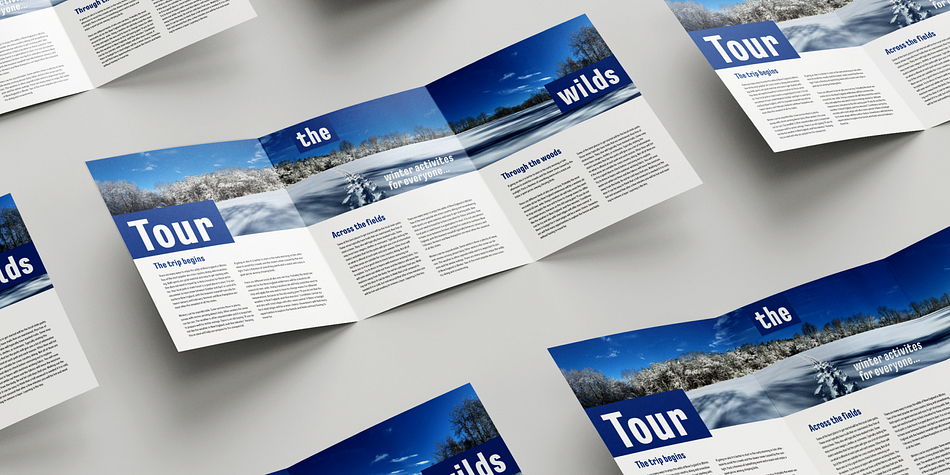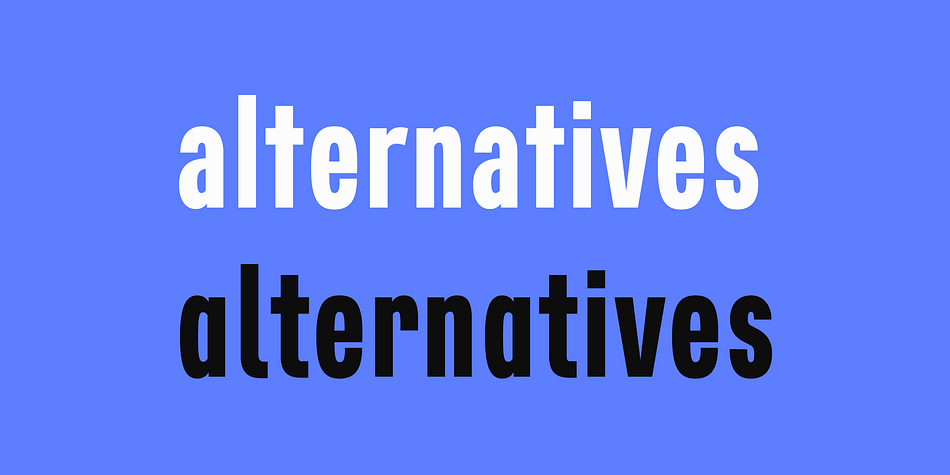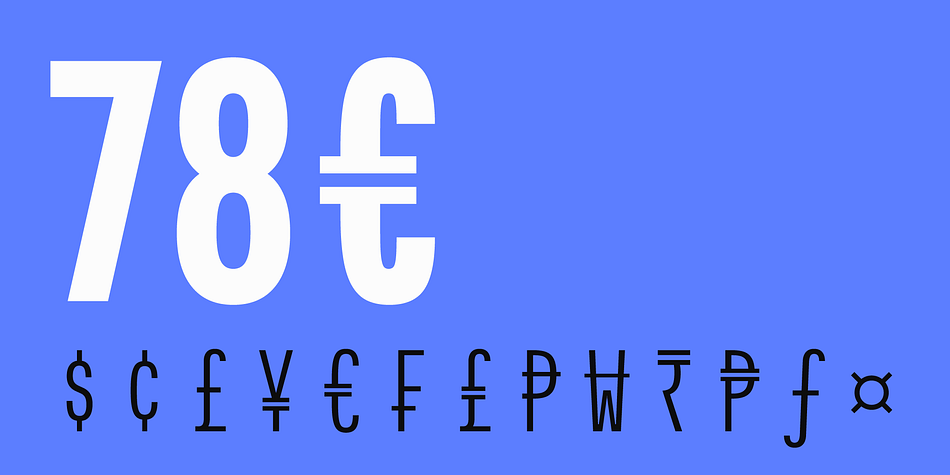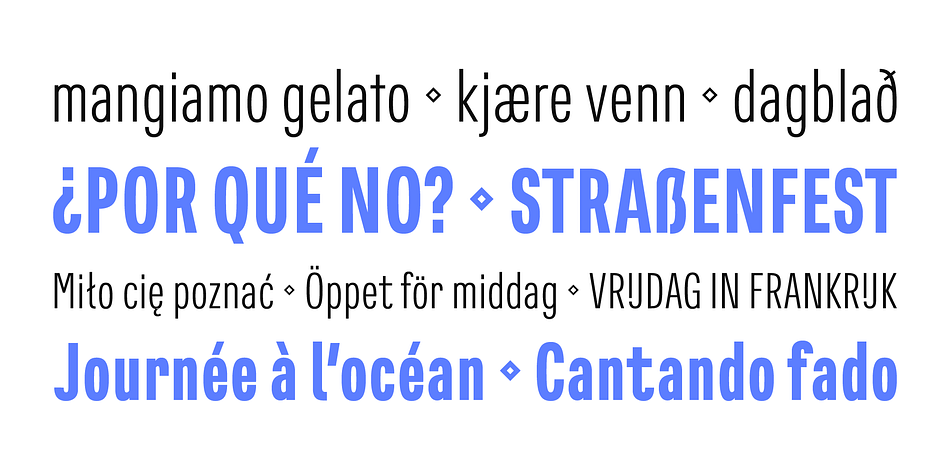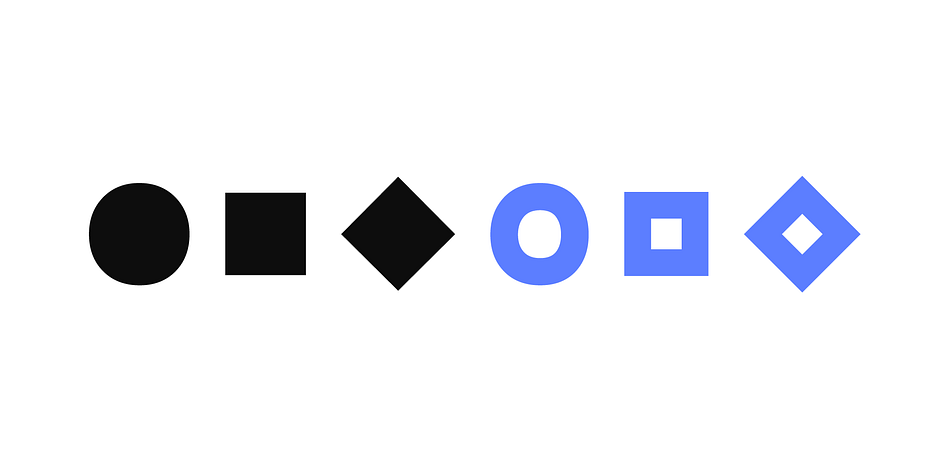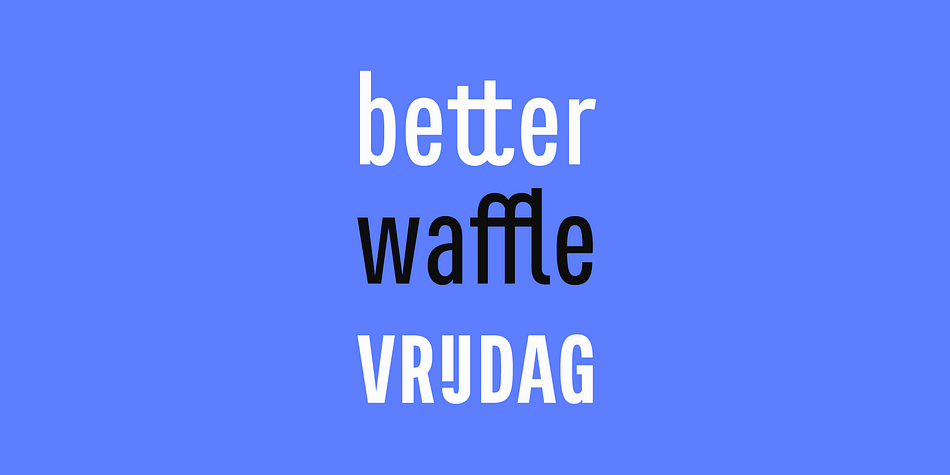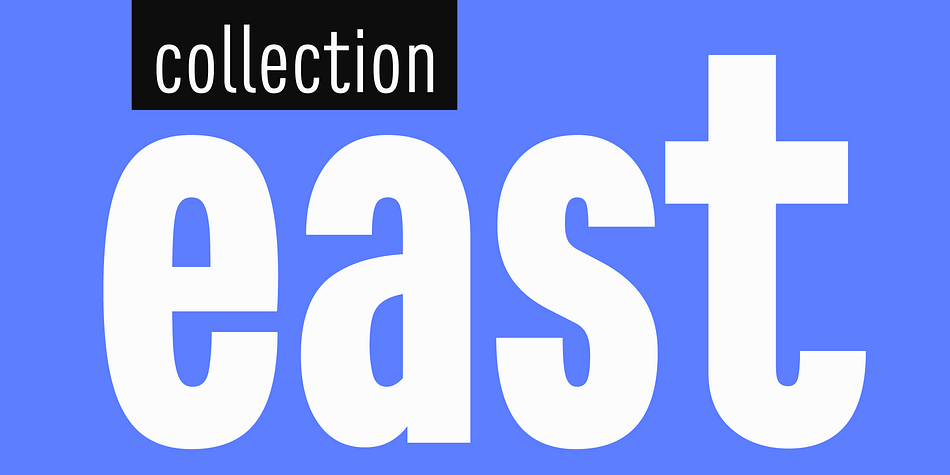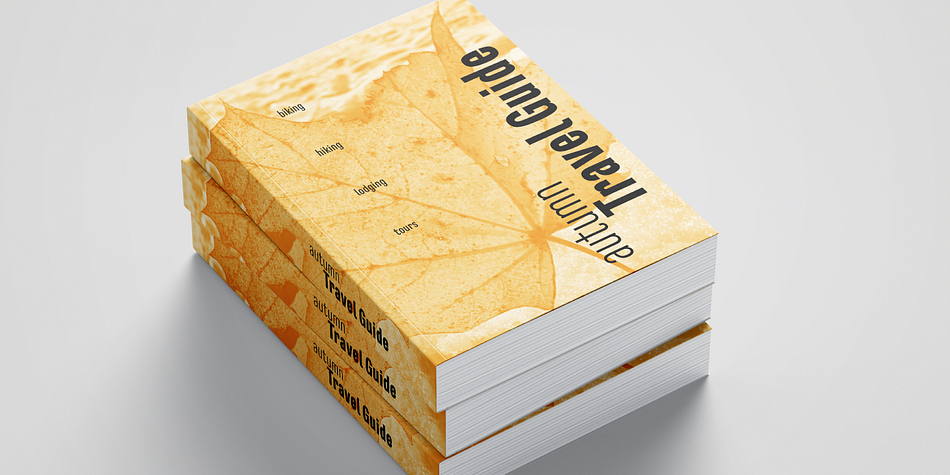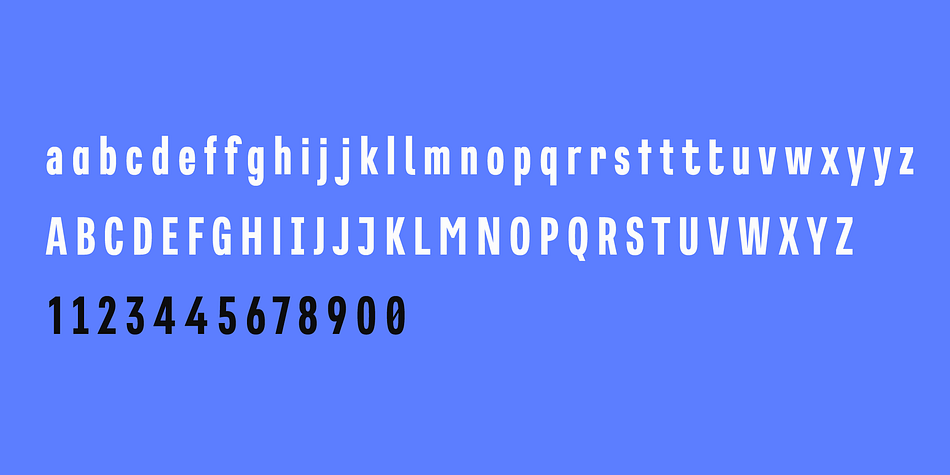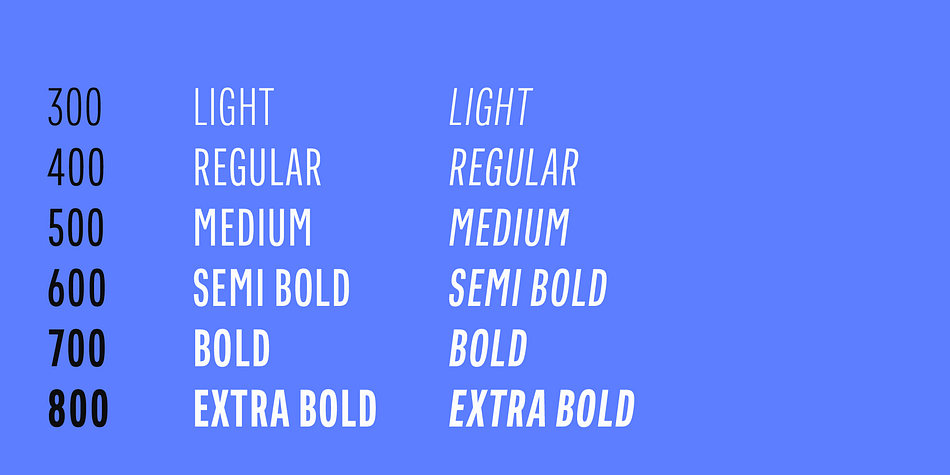
East & East Variable Super Family
Designed by Donald Tarallo, East & East Variable is a sans serif and sans serif font collection published by Tarallo Design.
East is a condensed sans serif typeface. It is timeless, but with a subtle nostalgia of vintage jazz albums, film titles, newspapers, and signage.
The light weight has excellent legibility at small sizes. The Extra Bold weight will capture attention. East is versatile, but would be a good choice for film titles, labels, publications, or any context where space is limited.
The OpenType features include stylistic sets, a one-story ‘a’, hooked letters, seriffed uppercase ‘I’ and ‘1’, a slashed zero, raised colon and punctuation (Spanish), German eszett, ligatures, and vertical fractions.
The variable font is a single file with weight and slant axes.